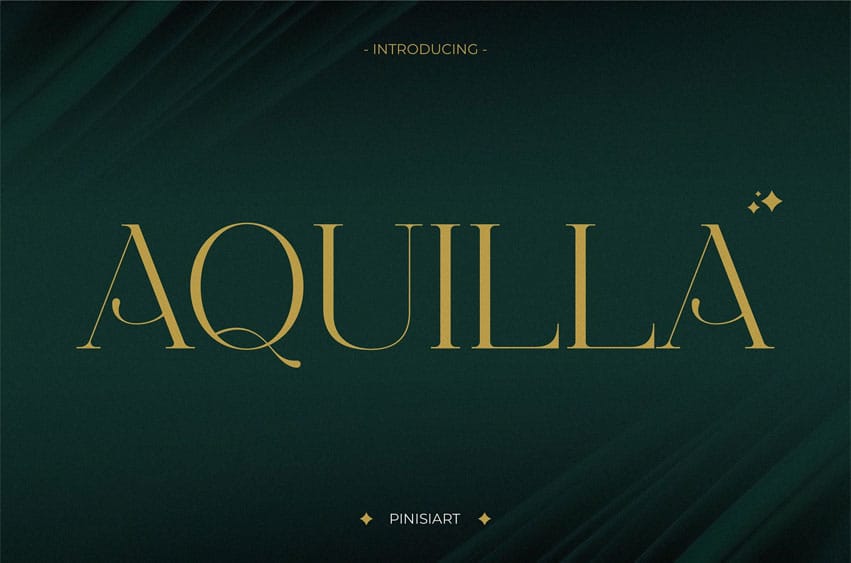
Aquilla Font is a high-end-inspired serif typeface with refined contrast and sculpted letterforms that create an air of sophistication. Its graceful serifs, balanced proportions, and fluid flow make it the perfect choice for projects that need a classic yet contemporary aesthetic. With an elegant vibe tailored for editorials, fashion branding, and wedding stationery, Aquilla blends timeless style with modern usability.
Designed for designers, entrepreneurs, and brands that want to convey high-end market, elegance, and trust, Aquilla transforms any project into a polished visual statement. Whether on a magazine cover, packaging design, wedding invitation, or high-end marketing campaign, Aquilla provides the perfect typographic voice for brands seeking distinction and elegance.
Key Features :
- Elegant Serif Style – sculpted with smooth curves and refined contrasts
- Versatile Applications – perfect for branding, editorial layouts, invitations, fashion, and packaging
- Timeless Design – balances modern high-end market with classical typography traditions
- High Readability – proportionate forms make it suitable for both headlines and longer text
- Professional Appeal – resonates strongly with creative professionals in design, fashion, and marketing
Bring elegance, trust, and modern refinement into your next project with Aquilla. Perfect for designers, wedding planners, boutique brands, and editorial creatives, this typeface ensures your work stands out with class and sophistication.